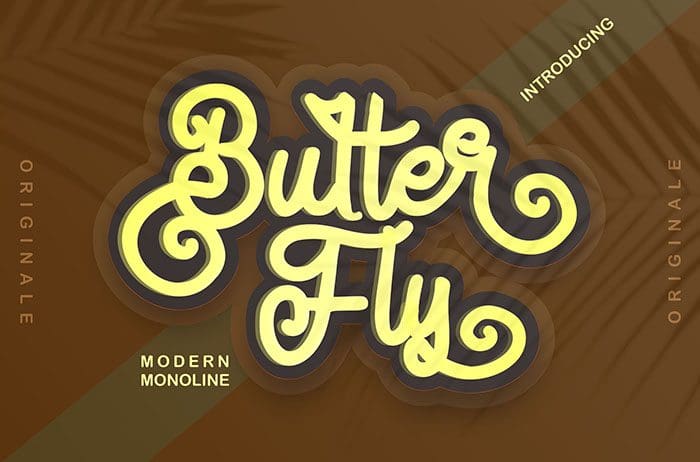
Butter Fly Script Font
Butter Fly is a lovely and incredibly unique script font. Fall in love with its distinct and versatile style and use it to create spectacular designs. Thanks to Vunira Studio for sharing this font! Take a look at this portfolio for more of his stunning fonts.